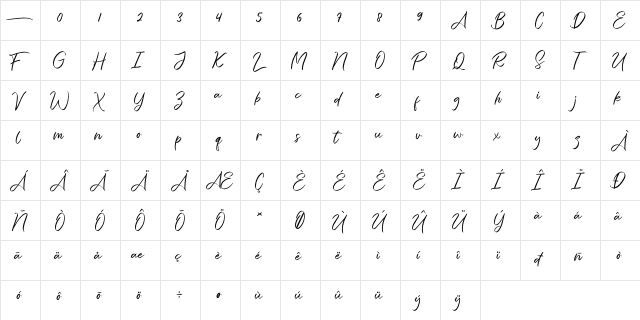
The Strength Regular
Regular ·  AminMario 2019 ·
DesignerAminMario 2019
Design Context for The Strength Typeface
The Strength is a composed and adaptable typeface that performs quietly and consistently across a wide range of design contexts.